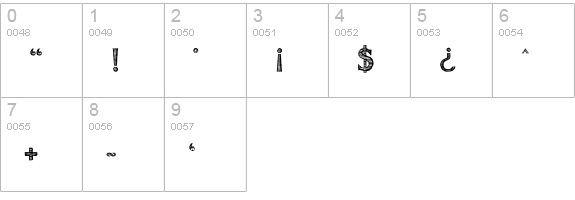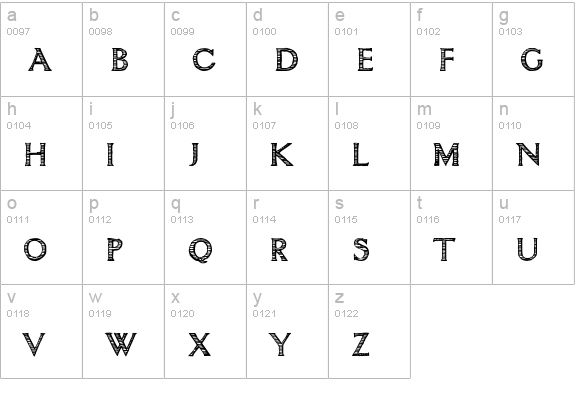
intimacy Font Details
Introducing Intimacy Font, a beautifully crafted typeface that is sure to add an extra touch of elegance and charm to your designs. This font exudes a sense of intimacy and warmth, making it perfect for projects that require a personal and heartfelt touch. With its delicate curves and graceful lines, Intimacy Font is designed to capture the essence of human connection. Whether you're creating invitations, wedding stationary, love letters, or any other romantic project, this font will effortlessly convey a sense of tenderness and affection. What makes Intimacy Font even more remarkable is that it is freely available to download at FontsMarket.com. Yes, you read that right! This stunning font can be yours without spending a dime. We believe in making high-quality resources accessible to everyone, and Intimacy Font is no exception. Downloading Intimacy Font is a breeze. Simply head over to FontsMarket.com, and within a few clicks, you'll have this beautiful font ready to use in your designs. Whether you're a professional designer or a passionate hobbyist, you'll appreciate the ease and convenience of adding Intimacy Font to your collection. So why wait? Enhance your designs with the touch of intimacy and elegance that Intimacy Font brings. Download it today, absolutely free, at FontsMarket.com. Let your creativity soar and create designs that leave a lasting impression with this exquisite typeface.